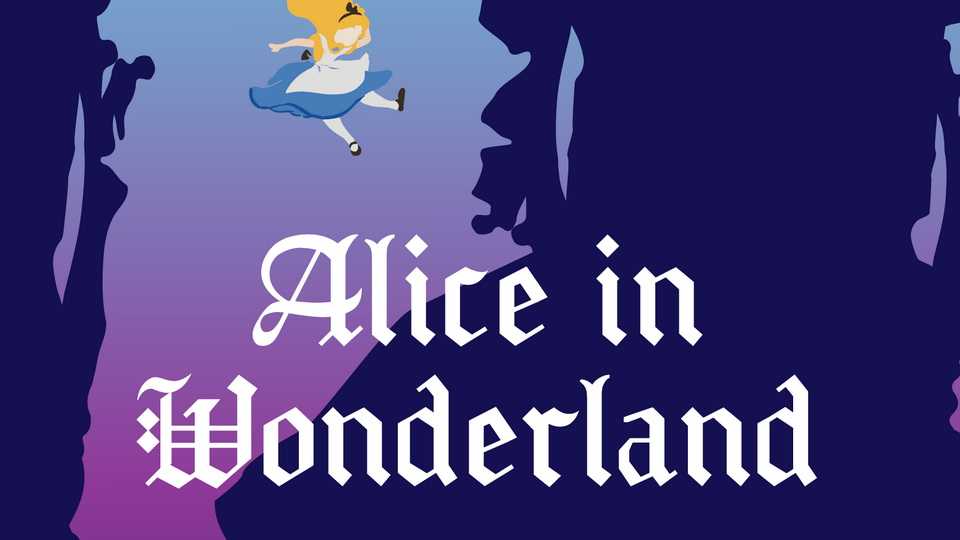
Download Alice in Wonderland font, a medieval Gothic typeface combining geometric design with unusual features. Alice in Wonderland font can be the perfect choice for distinctive headlines and brand identities, posters and formal design.